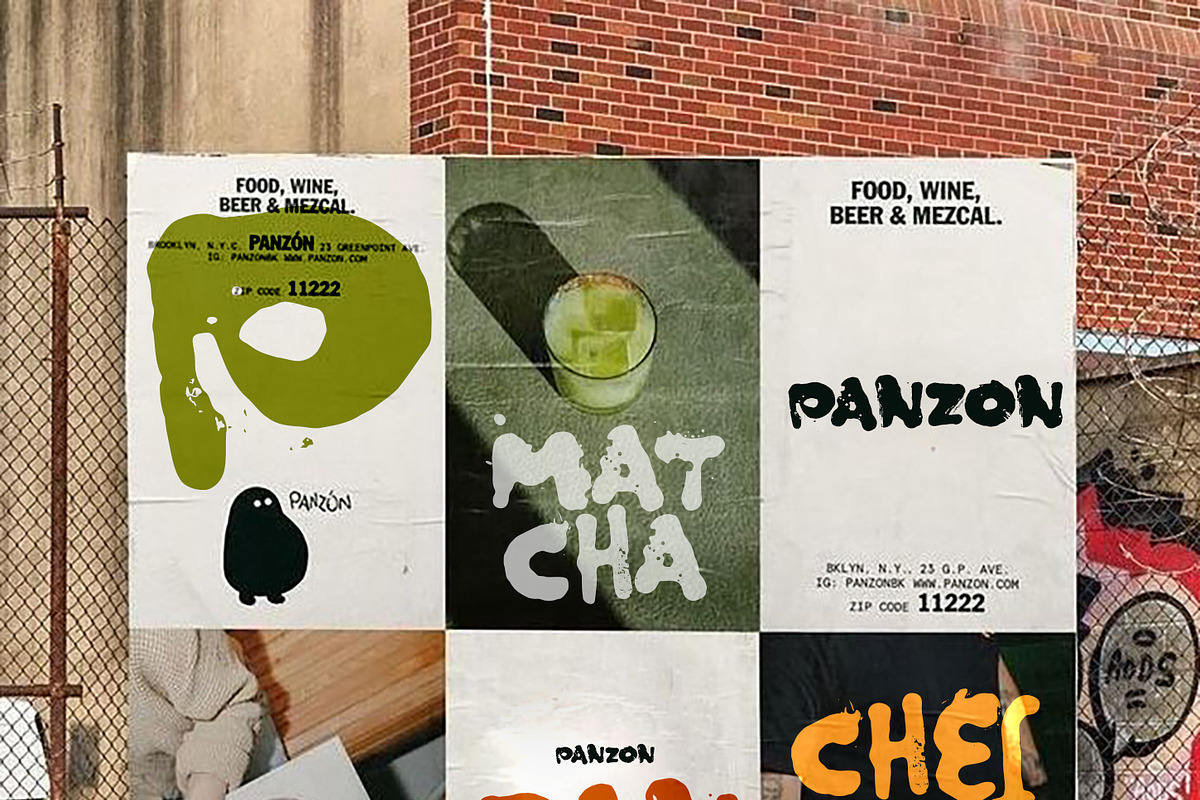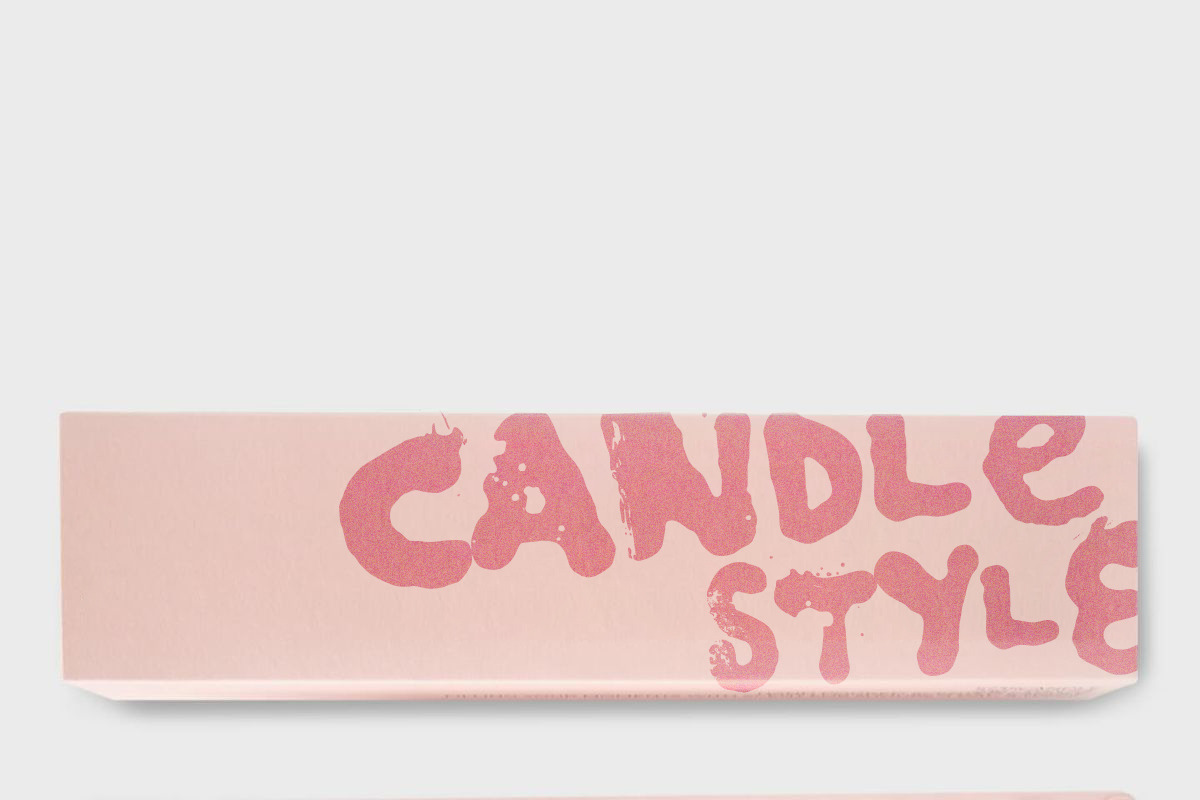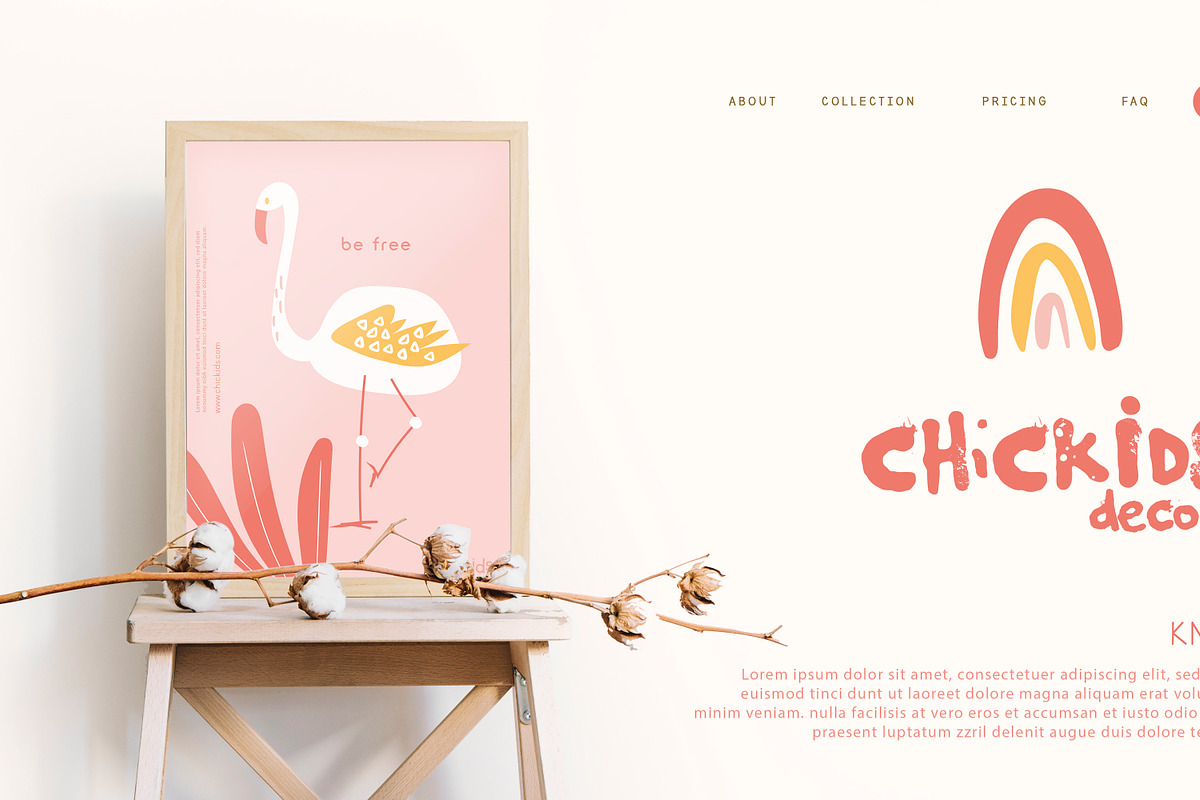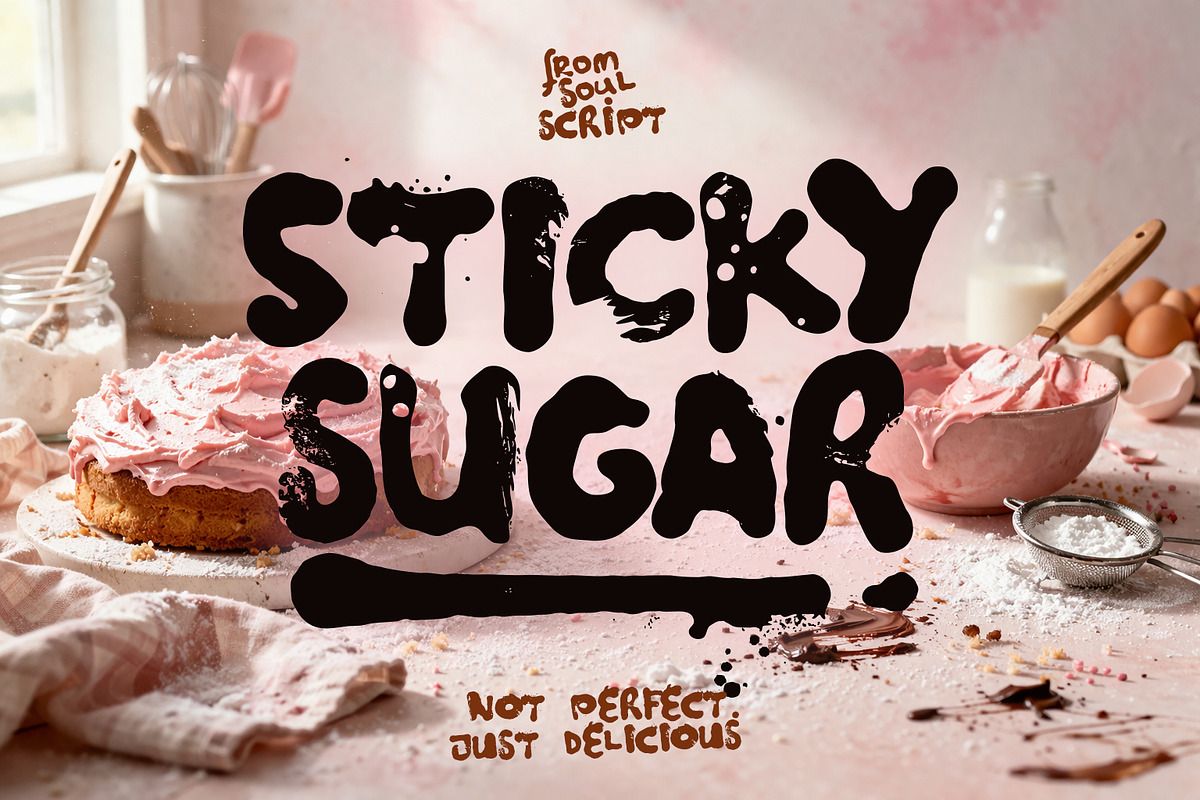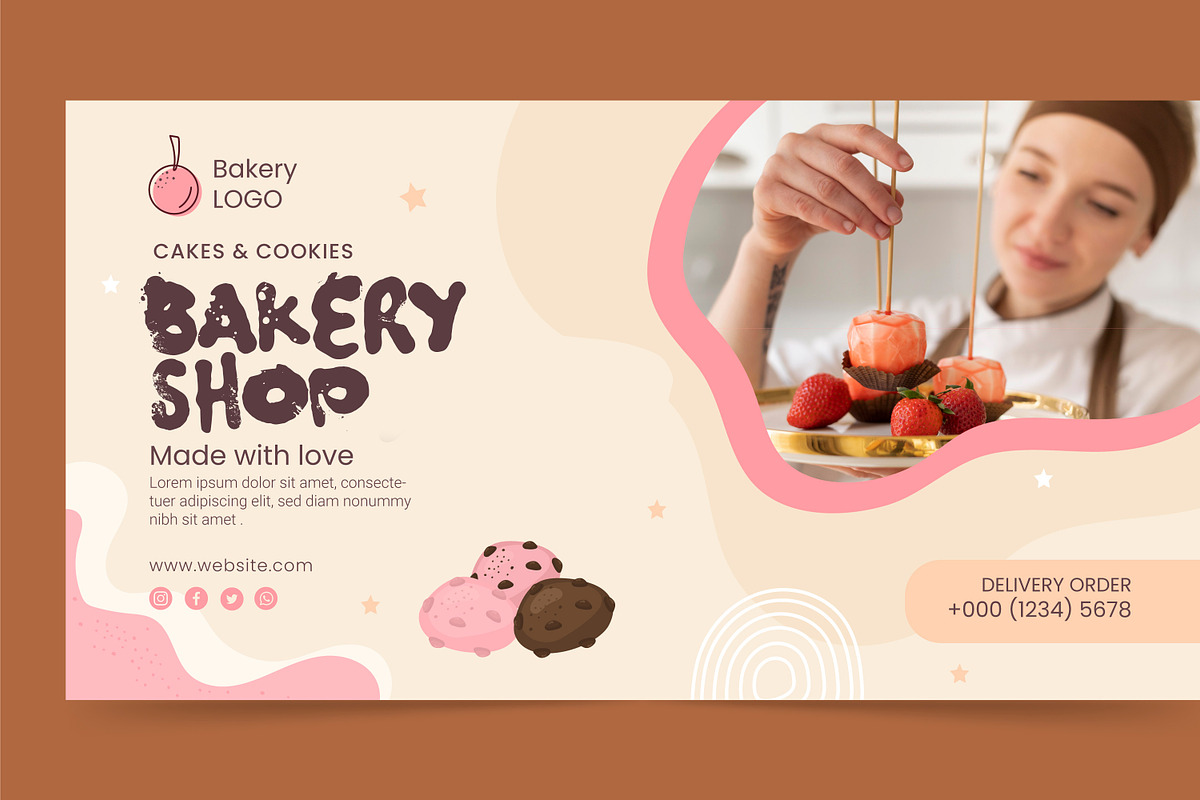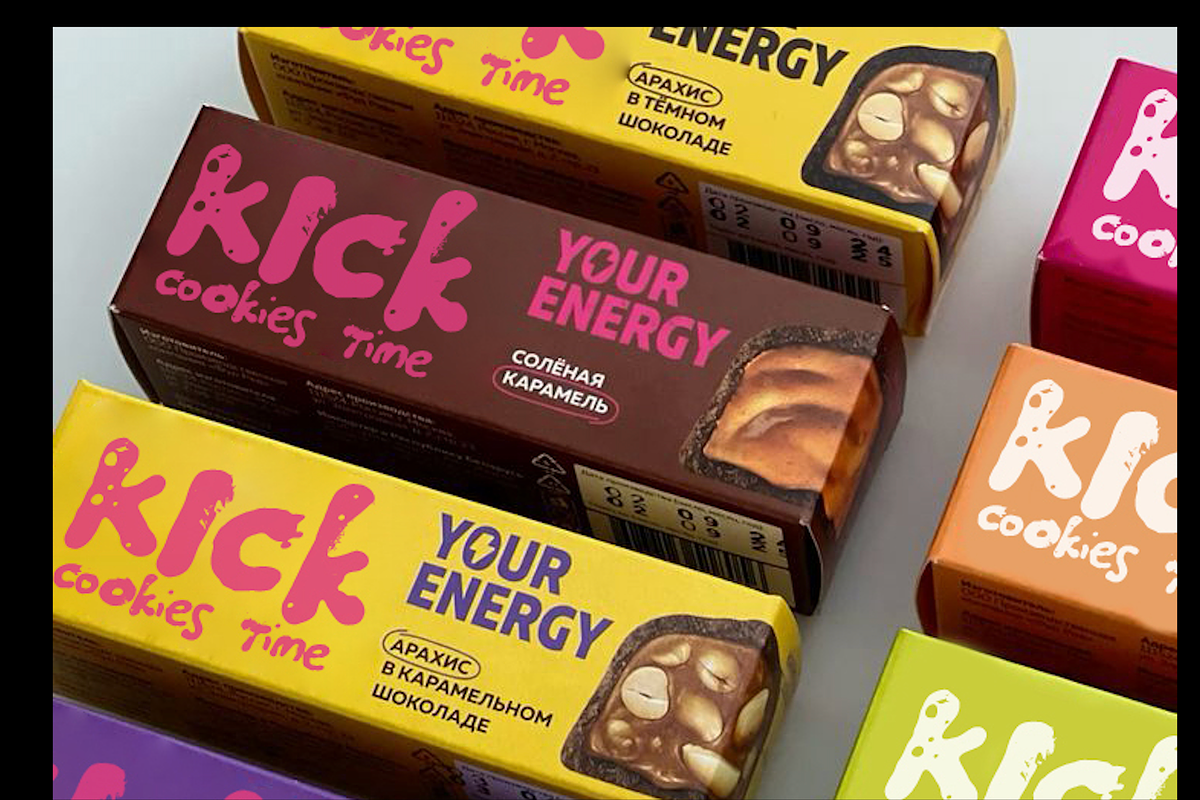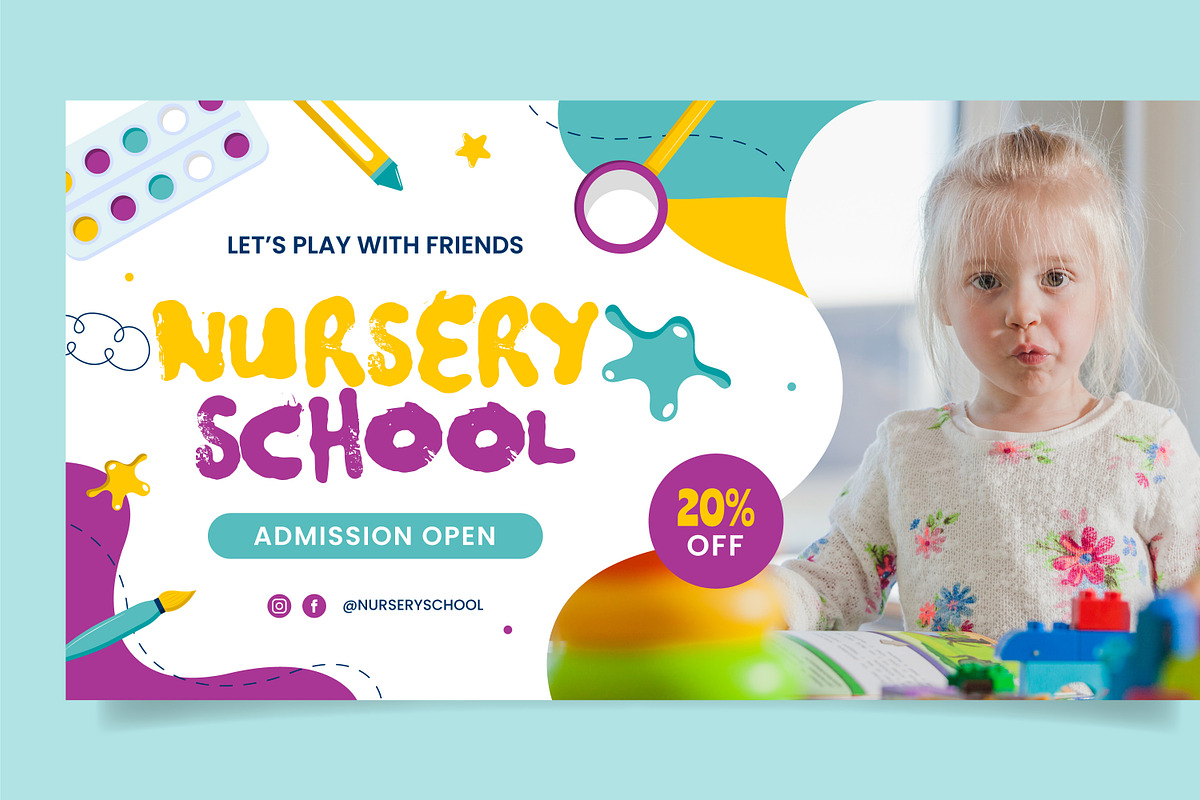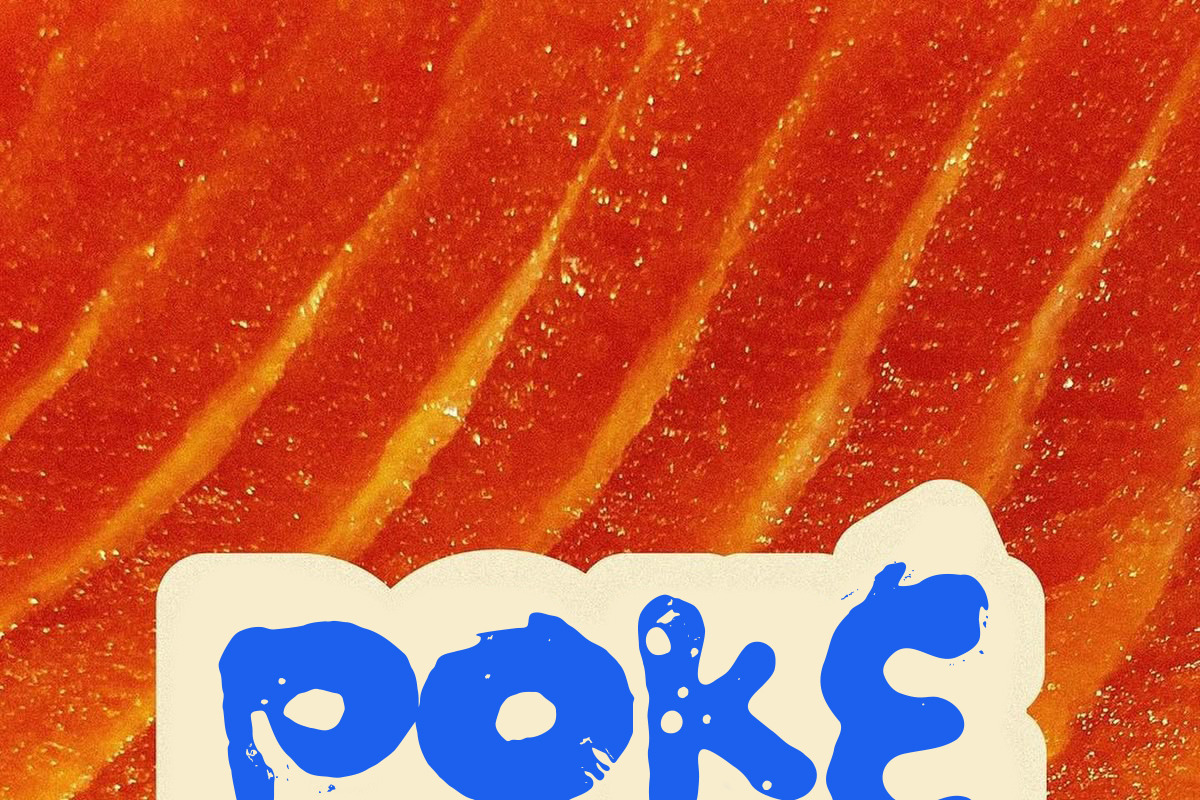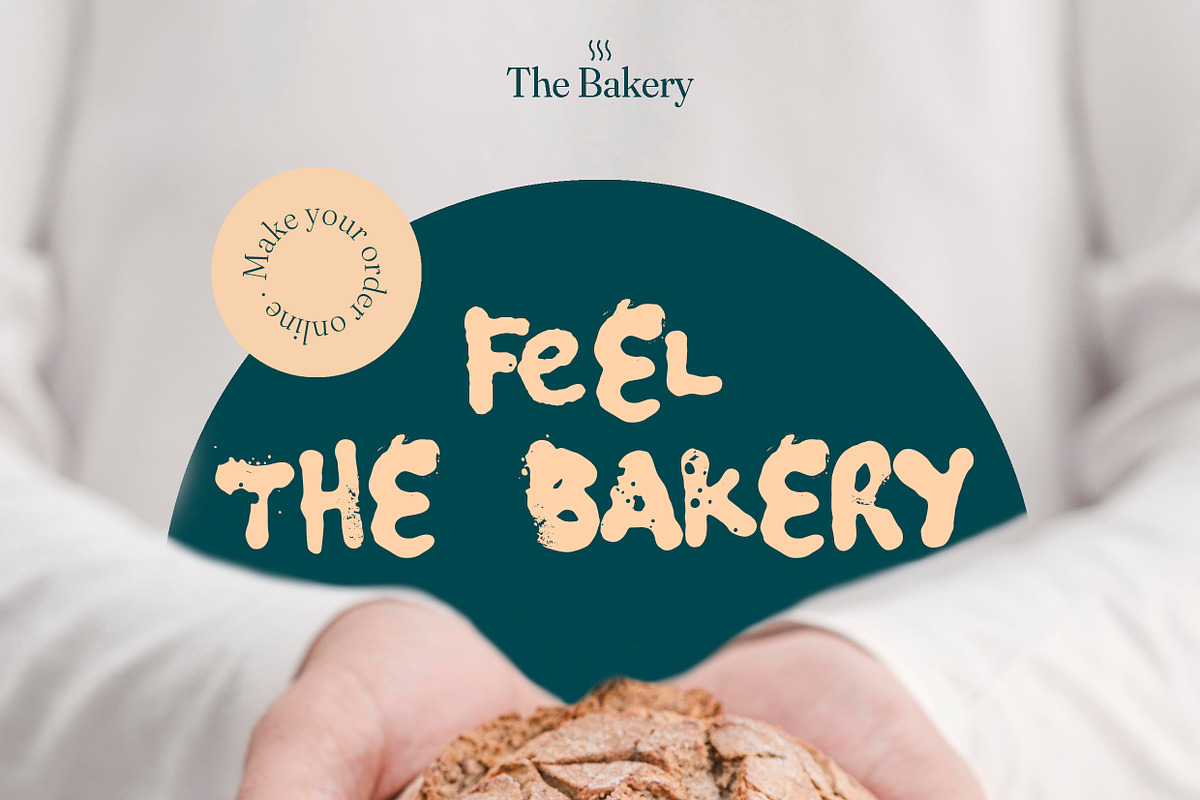
STICKY SUGAR
STICKY SUGAR – Playful Drip Font
Meet Sticky Sugar, a bold and irresistible display font that feels like it’s melting right off the page. Inspired by gooey candy, melted sugar, and playful street aesthetics, this typeface brings a sweet, sticky attitude to your designs.
With its soft curves, drippy edges, and chunky letterforms, Sticky Sugar is perfect for projects that want to stand out and feel fun, energetic, and a little mischievous. Whether you're designing for digital or print, this font adds instant personality and a handcrafted vibe.
- Streetwear and fashion branding
- Social media content & reels
- Posters, album covers & packaging
- Stickers, merch & custom products
- Fun logos and bold headlines
- Smooth, high-quality curves
Turn your ideas into something deliciously bold with Sticky Sugar. It’s not just a font — it’s a vibe.